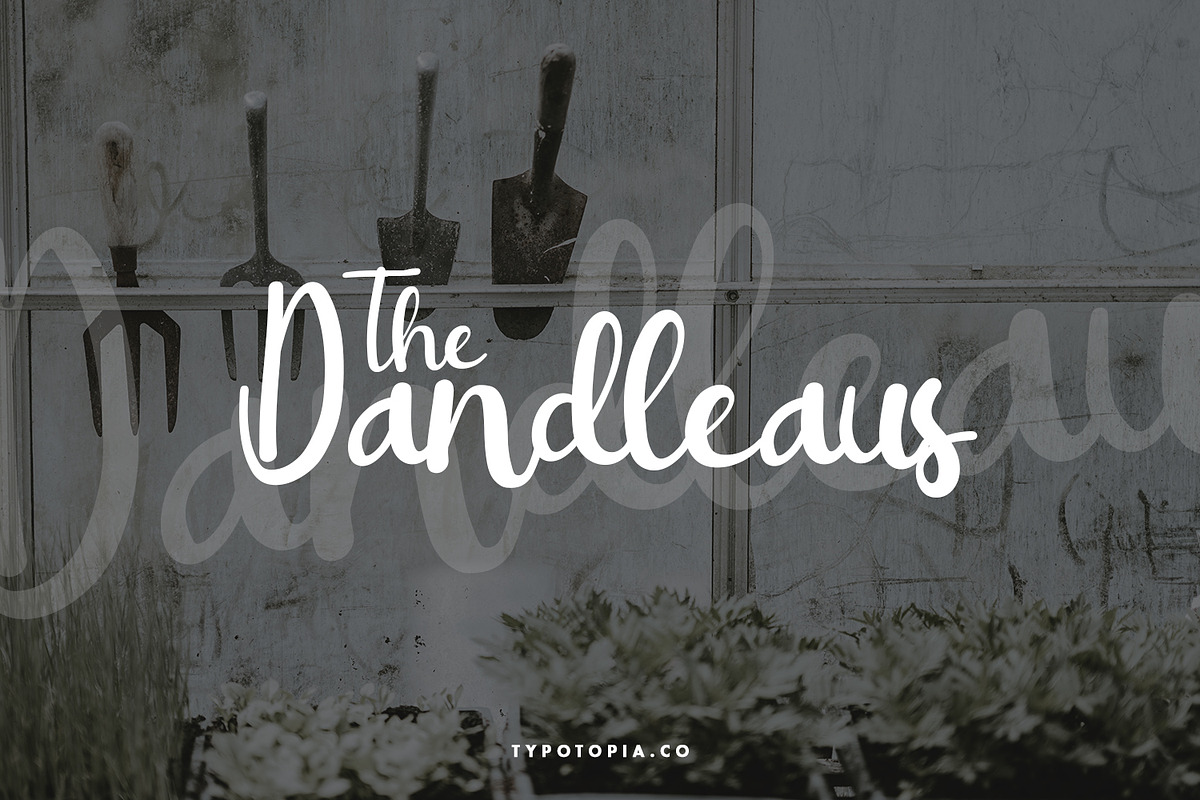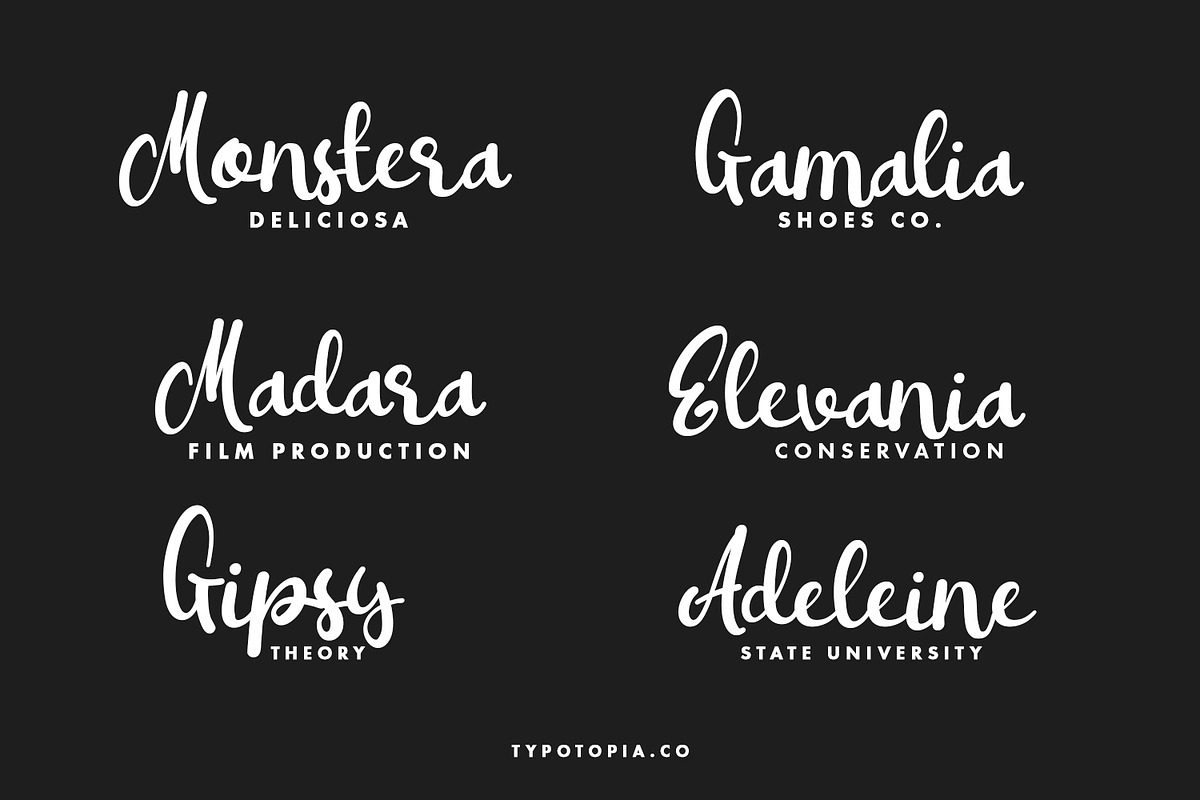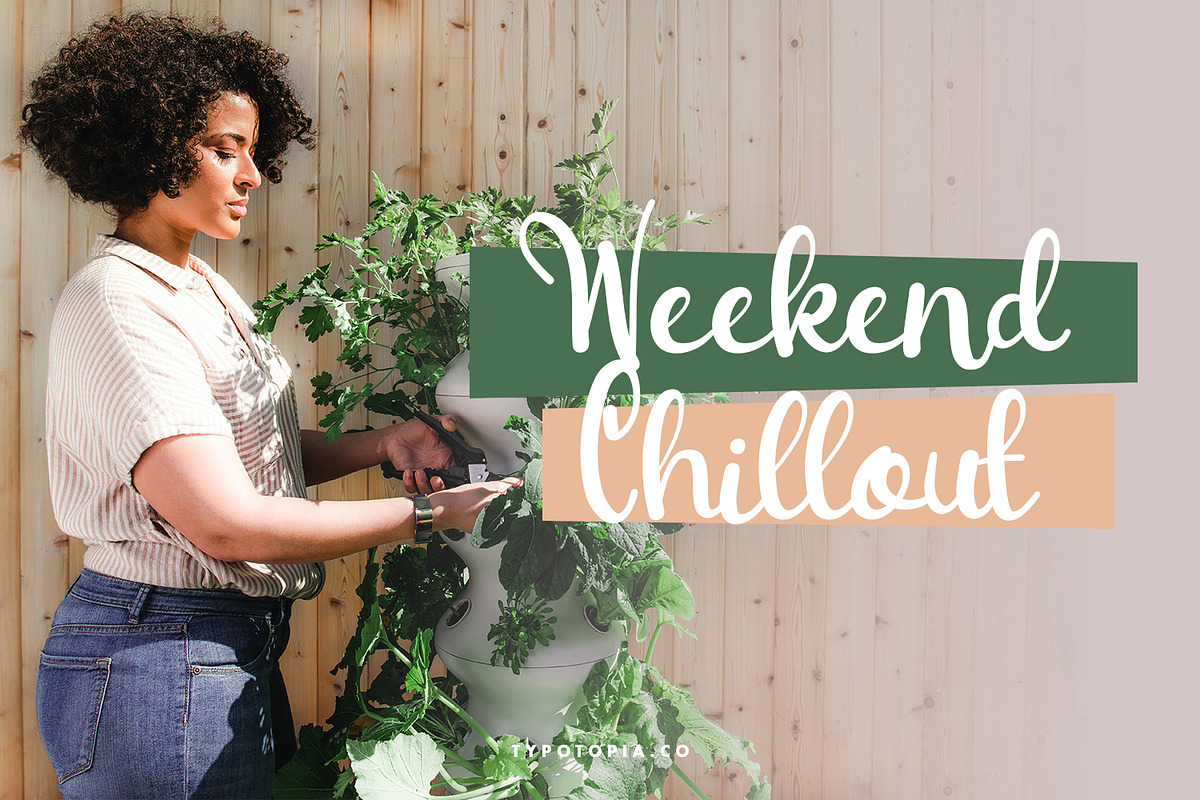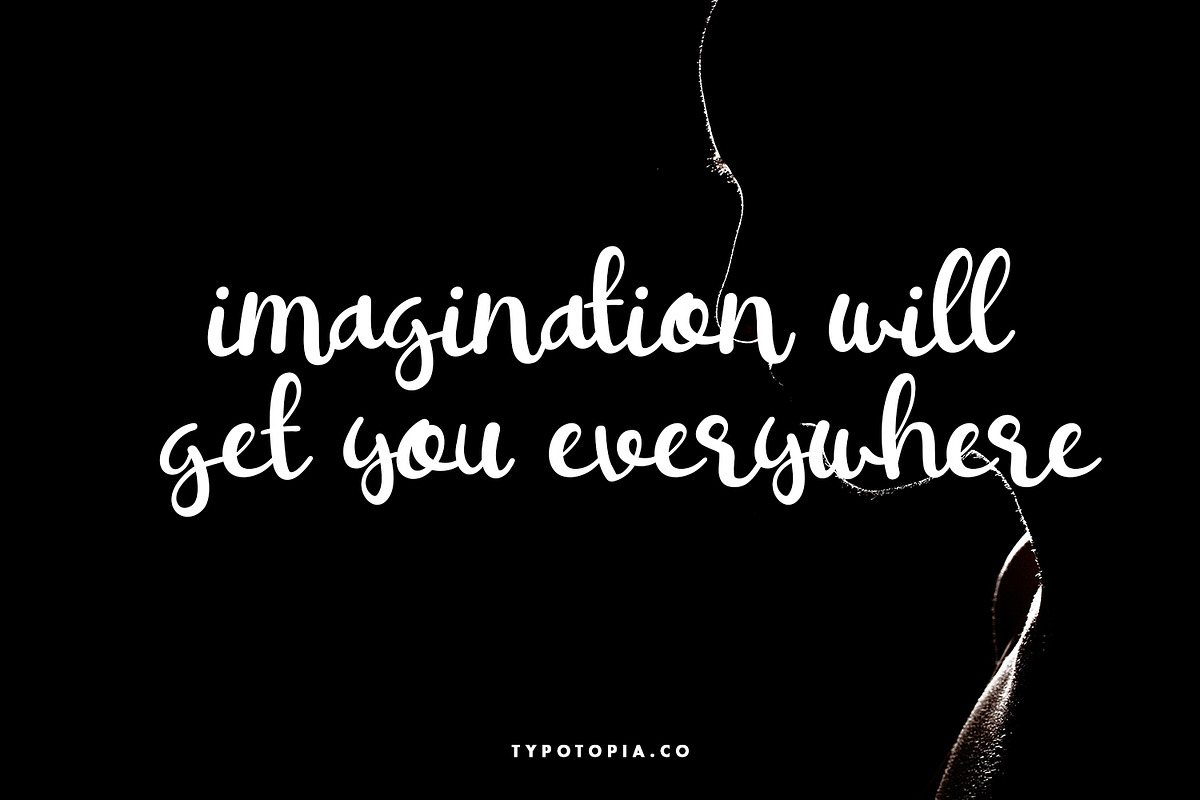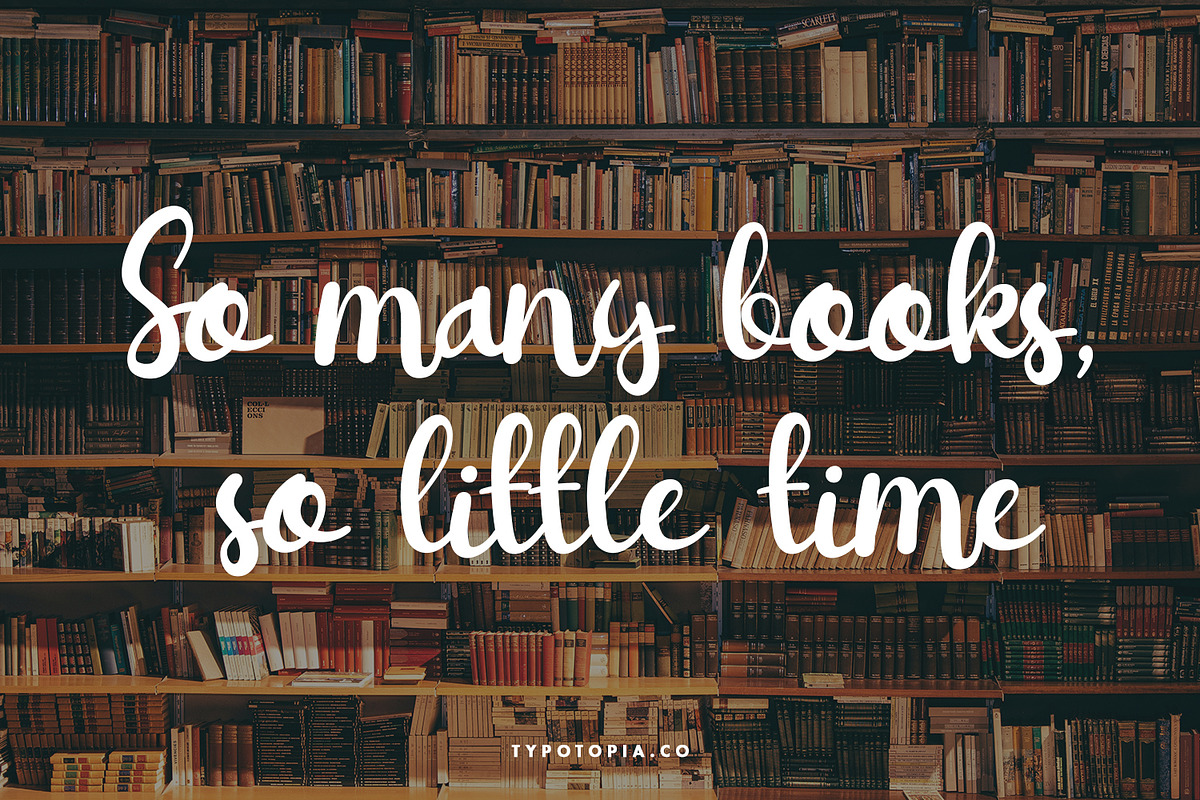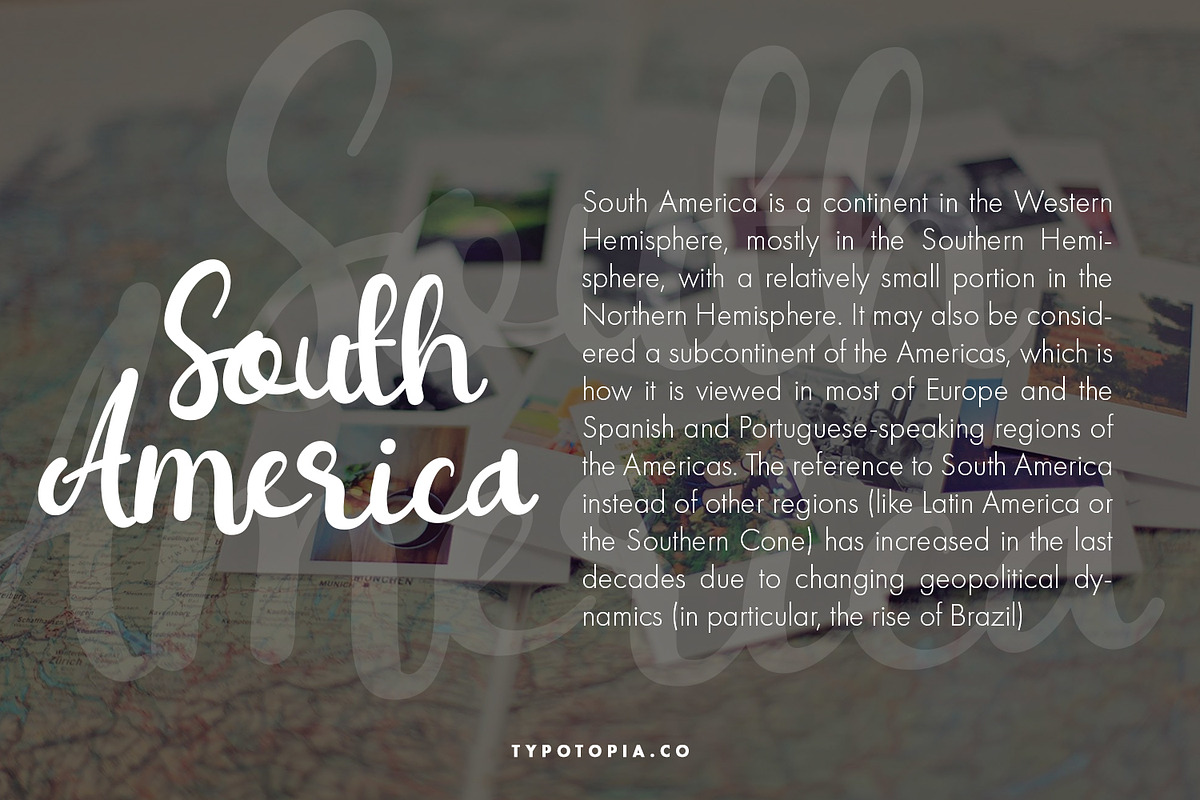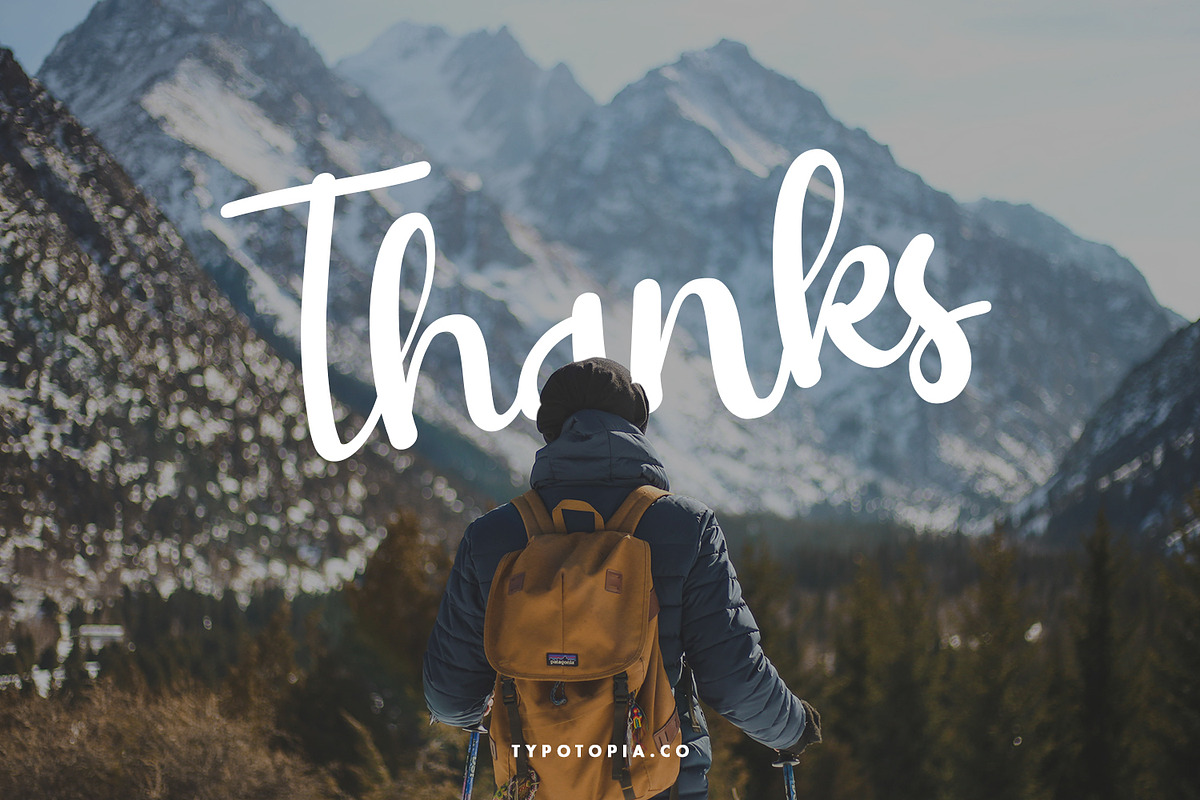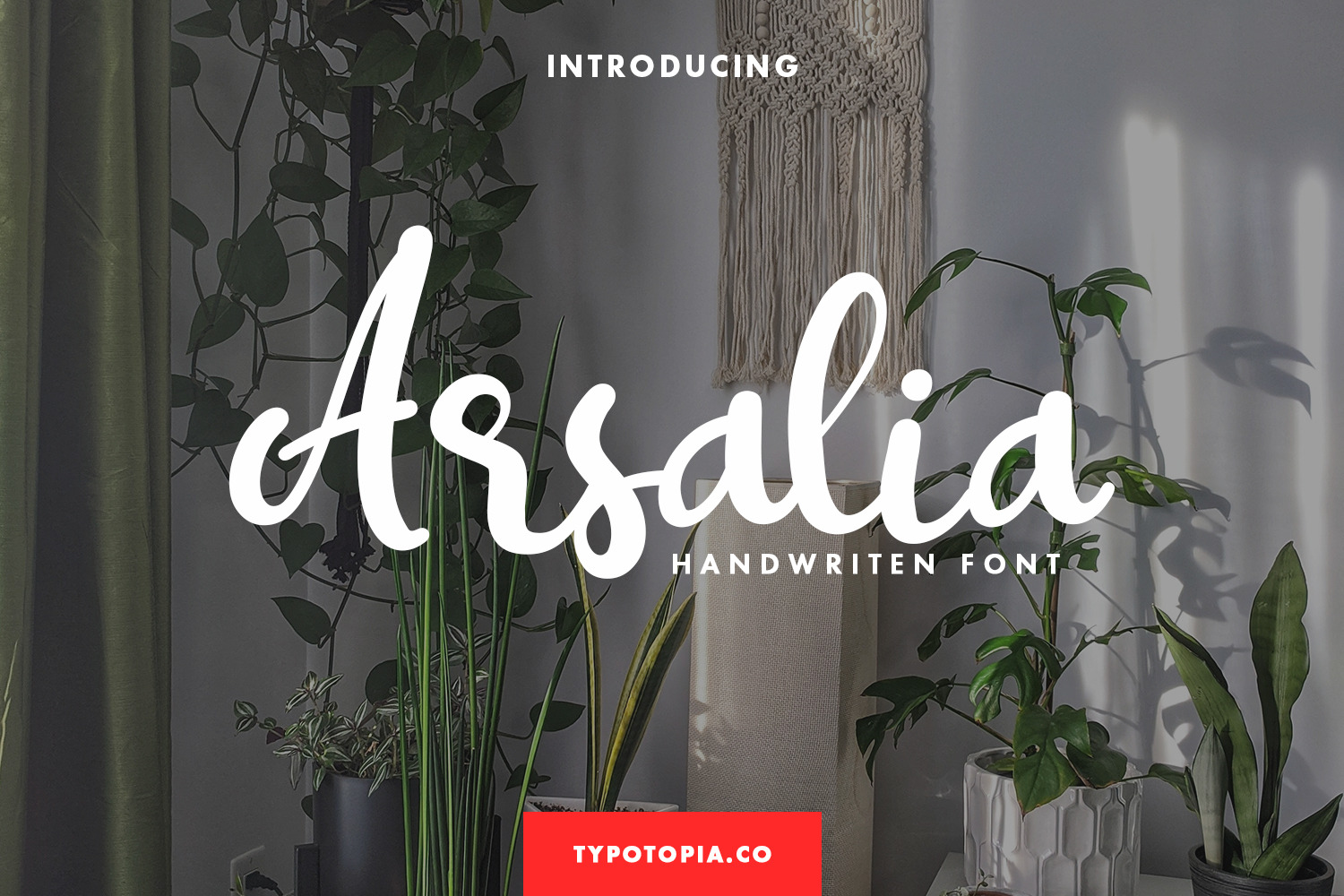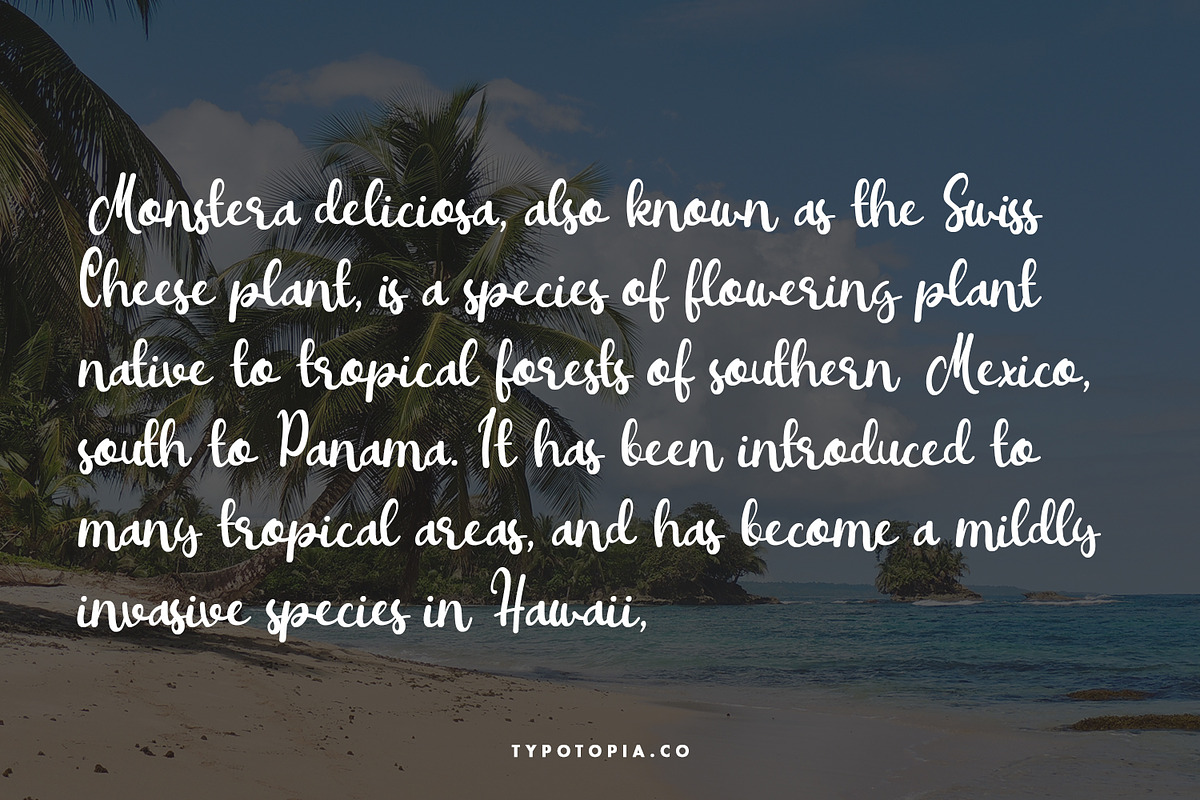
Arsalia Handwritten Font
Introducing, Arsalia a Fancy & Unique Script Font!!
Arsalia is a Fancy & Unique Script Font for your Design that is absolutely great for your next creative project such as logos, printed quotes, invitations, cards, product packaging, headers, Logotype, Letterhead, Poster, Apparel Design, Label, and etc.
This Versatile Font includes also supports Multilingual Characters. Making this Font a Swiss Army knife in your Font Library. It's extremely fun to use as each word can be transformed to your liking.
What are the main Features on This Fonts :
- Uppercase & Lowercase letters